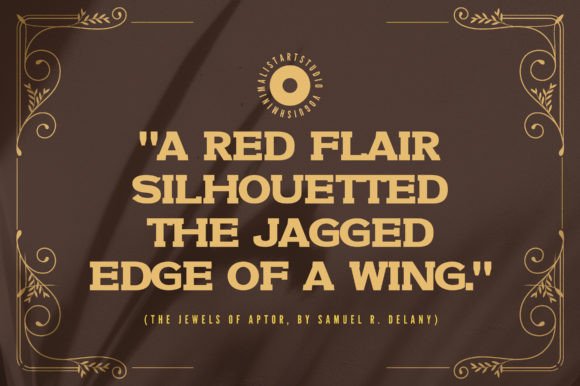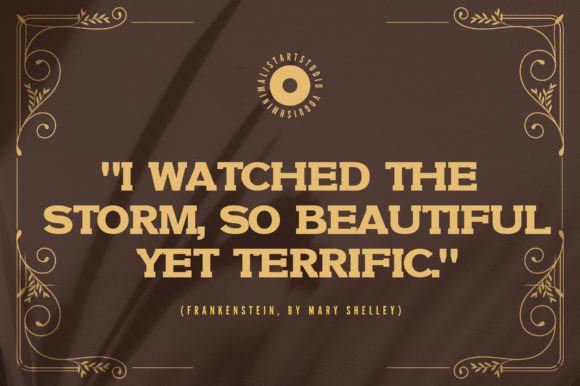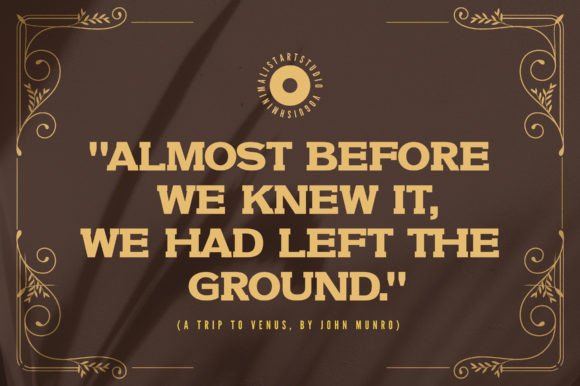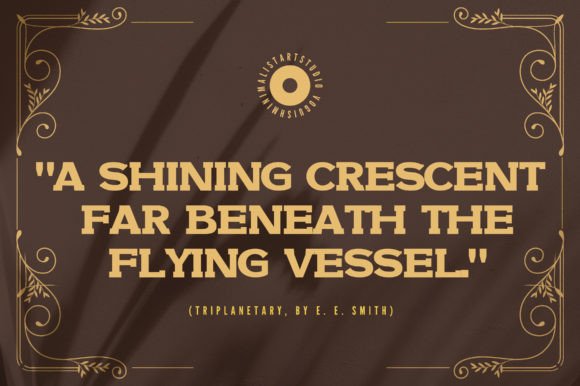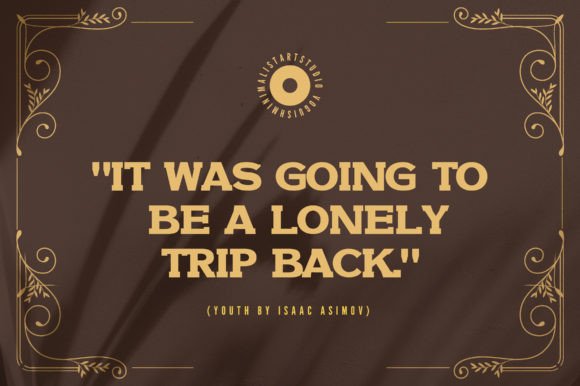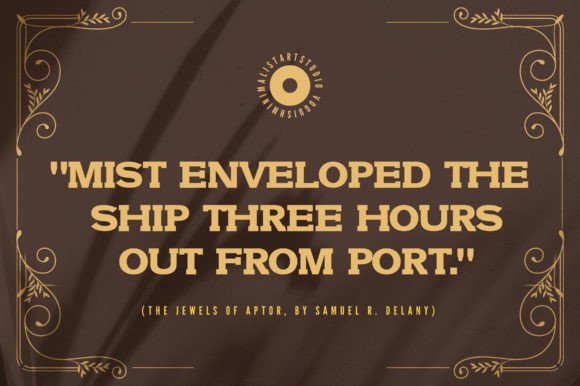
Introduction to Konner Font
Have you ever stumbled upon the perfect design element for your creative project, only to find it elevates your entire concept to new heights? That’s exactly what happens when you add the Konner Font to your design library. This elegant slab serif font has the power to transform any visual creation into a stunning masterpiece.
As a valuable design resource, Konner Font offers a high-quality solution for designers looking to add sophistication to their work. With its clean lines and refined aesthetic, it’s perfect for a wide range of creative projects, from marketing materials to digital art. Plus, it’s available for free download, making it an accessible addition to any designer’s toolkit.
Whether you’re working on a complex design or a simple yet elegant visual, the Konner Font is sure to be a game-changer. Its versatility and high-quality design make it a must-have for designers of all levels, and its transparent background allows for seamless integration into any project.
Key Features of Konner Font
- High-quality design resource ideal for creative projects, offering a unique and modern aesthetic.
- Transparent background allows for effortless layering and composition in design projects.
- Available in a range of sizes, from 12pt to 72pt, making it suitable for various design applications, from small text to large headings.
- High-resolution design (300 DPI) ensures crisp and clear typography, even at large sizes.
- Unique characteristics, including bold lines and geometric shapes, set it apart from other fonts and add visual interest to designs.
- Easy to customize and edit, making it a valuable asset for designers working on creative projects.
Honest Review: Konner Font
As a designer, I’m always on the lookout for high-quality design resources that can elevate my creative projects. Recently, I had the chance to try out the Konner Font, and I’m here to share my honest review.
- ✨ Clean and modern design aesthetic: The Konner Font has a sleek and contemporary feel that’s perfect for modern branding and design projects.
- ✨ High-quality font files: The font files are clear and crisp, making it a great choice for both digital and print projects.
- ⚠️ Limited language support: The Konner Font only supports a limited range of languages, which may be a drawback for designers working on international projects.
- ⚠️ Not suitable for complex typography: While the font looks great for body text, it may not be the best choice for complex typography or headlines that require a lot of customization.
Overall, I think the Konner Font is a solid addition to any designer’s toolkit. While it may have some limitations, its clean design and high-quality font files make it a great choice for many creative projects.
Getting the Most Out of Konner Font
For optimal results, use the Konner Font in bold and italic styles to add emphasis to your text. Experiment with different font sizes and combinations to achieve the perfect look for your creative project.
The Konner Font is suitable for various design projects, including:
- Brochure design
- Infographic design